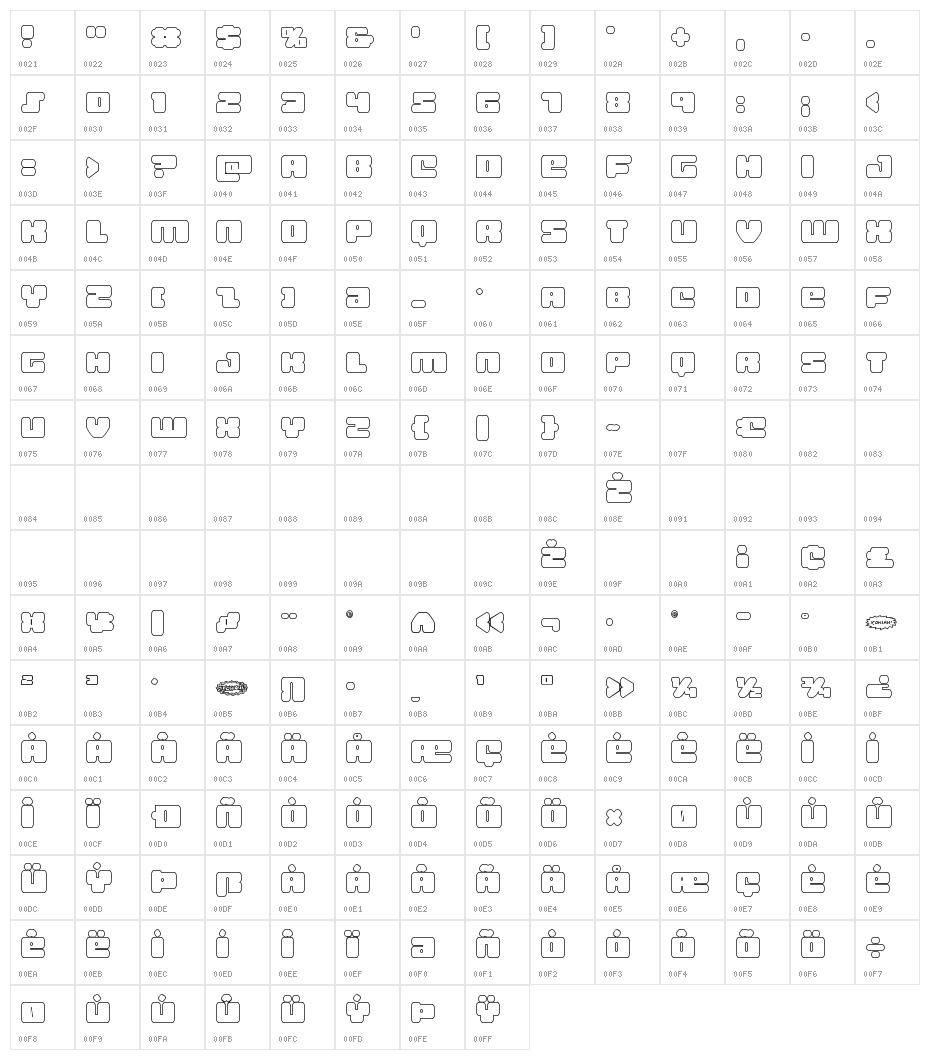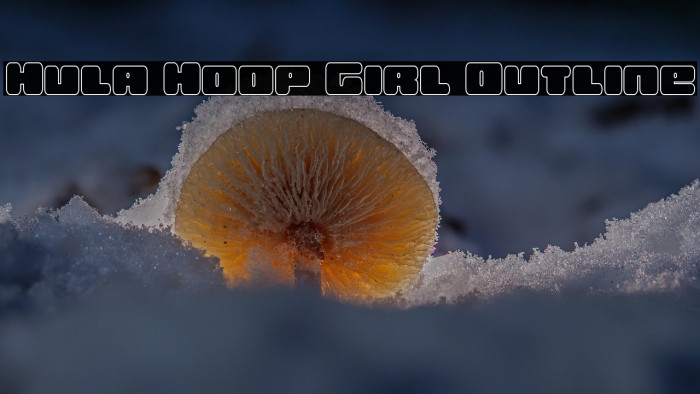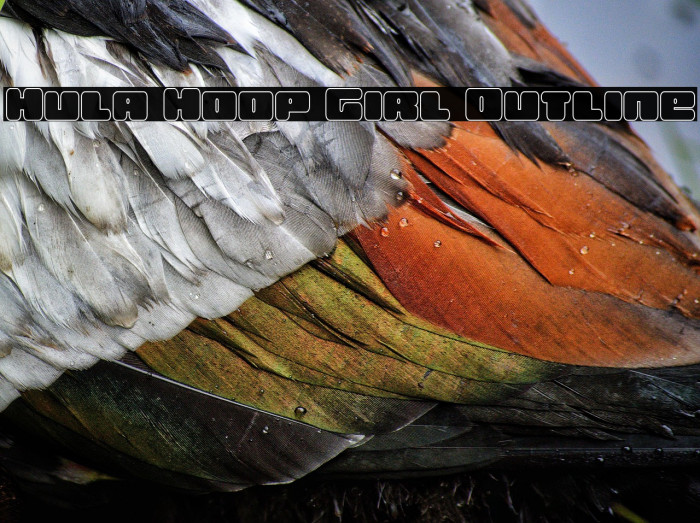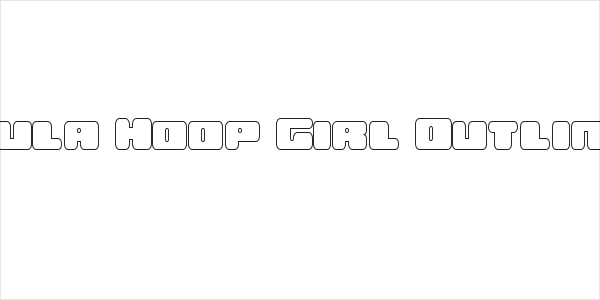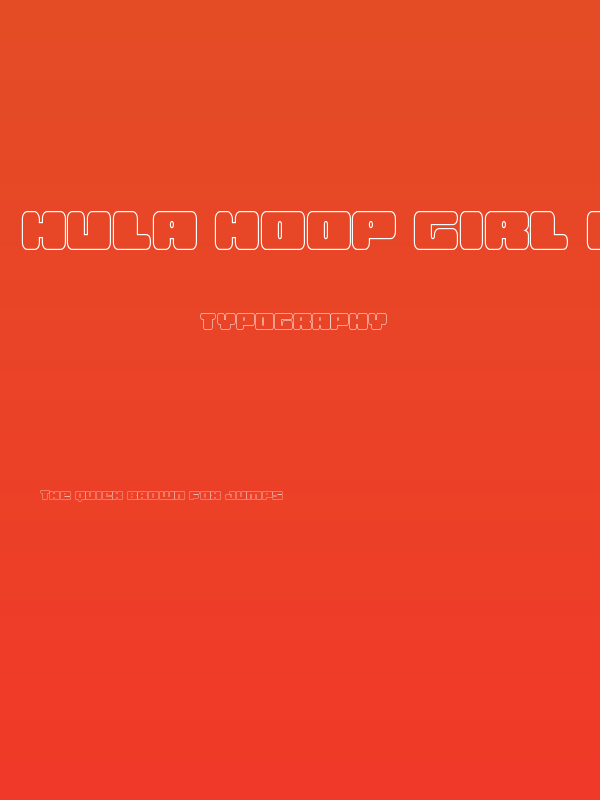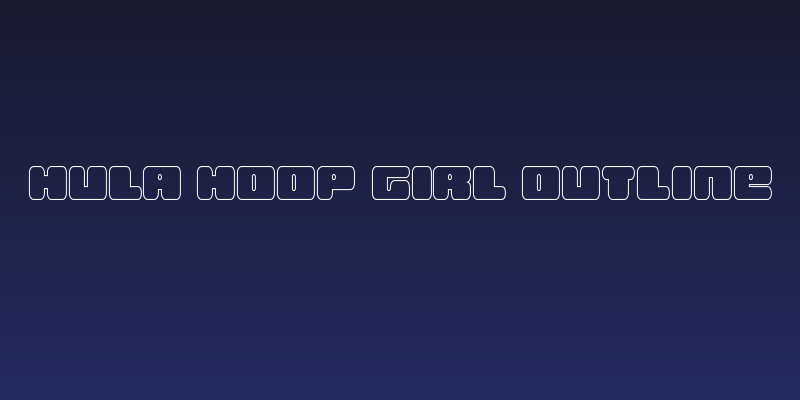
Hula Hoop Girl Outline Font
Hula Hoop Girl Outline Description
This font features a playful and bold outline style, characterized by its rounded, bubble-like forms. Each character is enclosed in a thick outline, giving it a three-dimensional appearance. The letters are uniformly wide, with a consistent stroke that maintains a sense of balance and harmony across the alphabet. The numbers and special characters follow the same design principles, ensuring a cohesive look. This font's unique style makes it stand out, ideal for creative and fun projects. Its boldness and clarity ensure readability while adding a touch of whimsy.
| Overall Style | Playful, Modern |